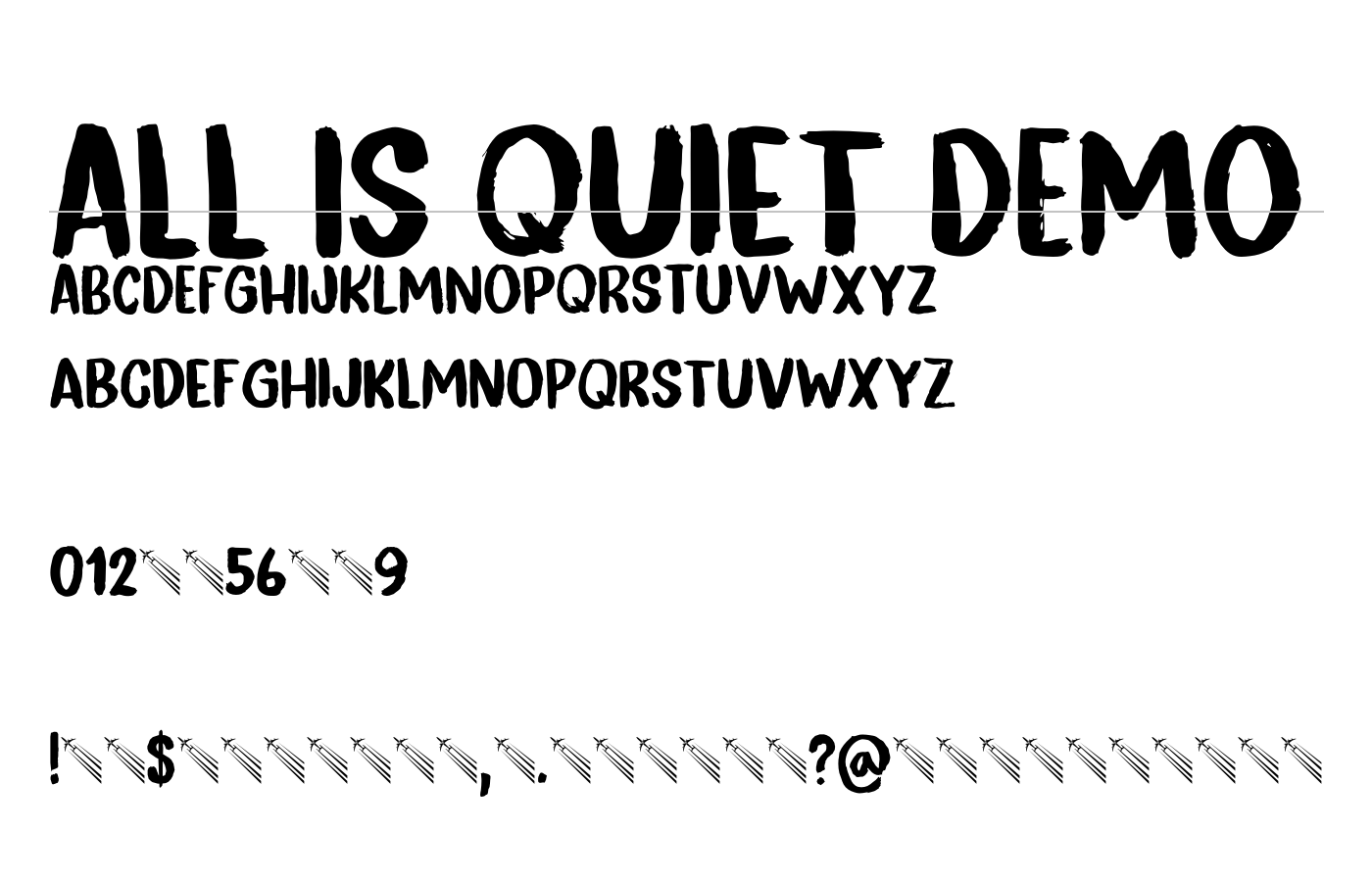
All Is Quiet DEMO is a bold, hand-drawn sans serif font that exudes a casual, playful energy with its uneven, brush-like strokes and slightly irregular letterforms. Its tall, narrow characters and rough edges give it a unique, expressive personality ideal for creative projects, informal branding, posters, or headlines that need a strong, artistic touch. This font works best where a distinctive, handcrafted look is desired to add character and warmth.
All Is Quiet DEMO Font
About All Is Quiet DEMO Font
| Font family | All Is Quiet DEMO Font |